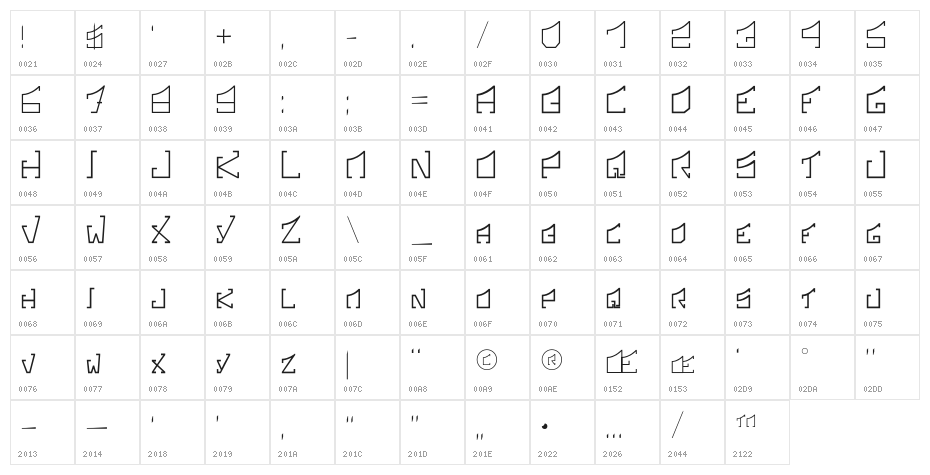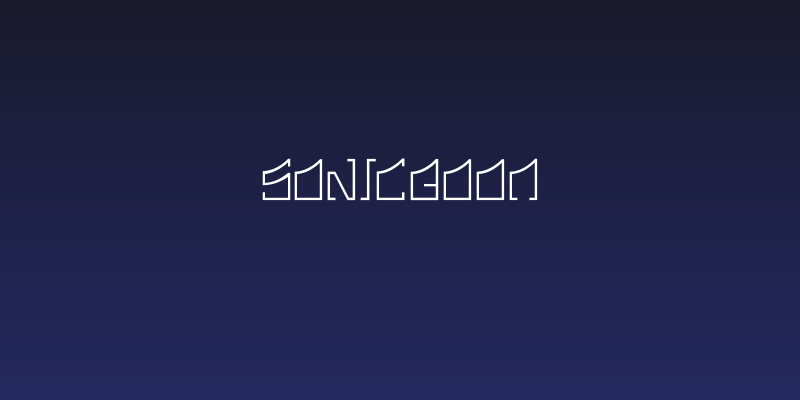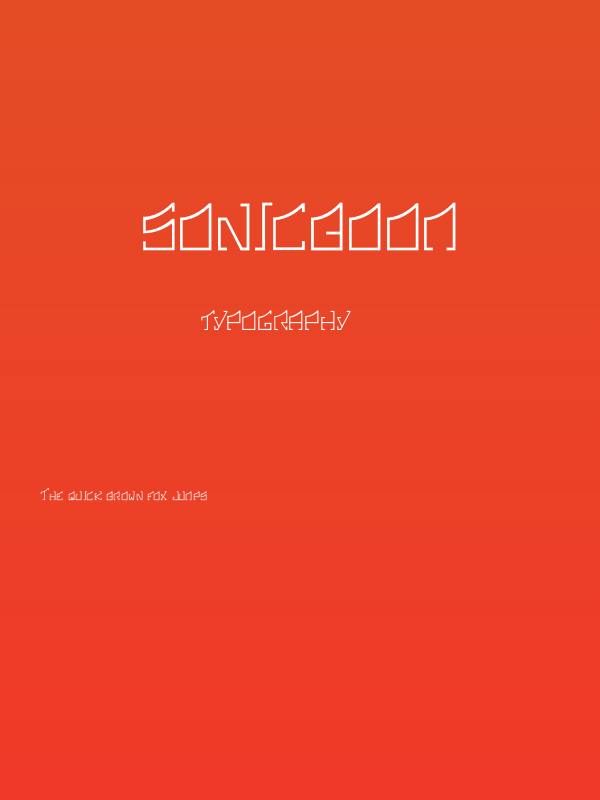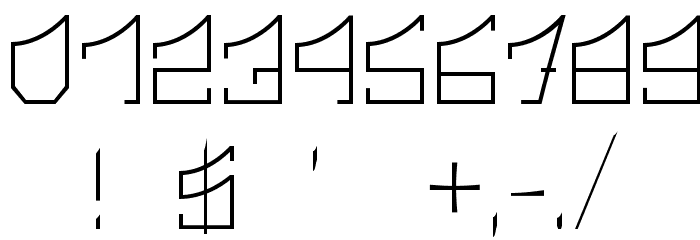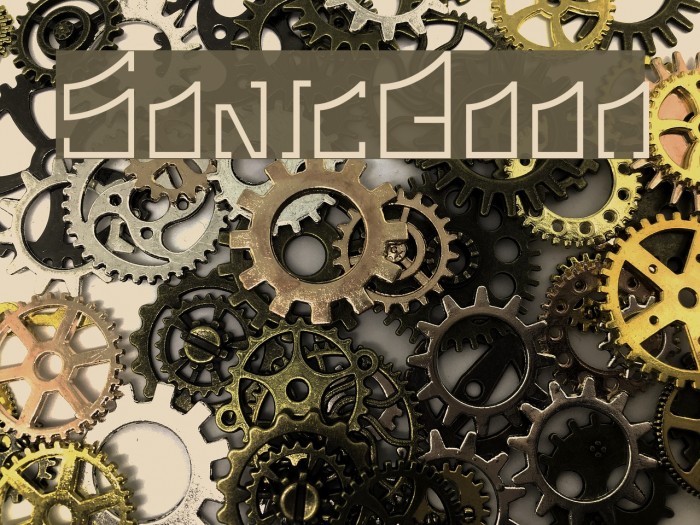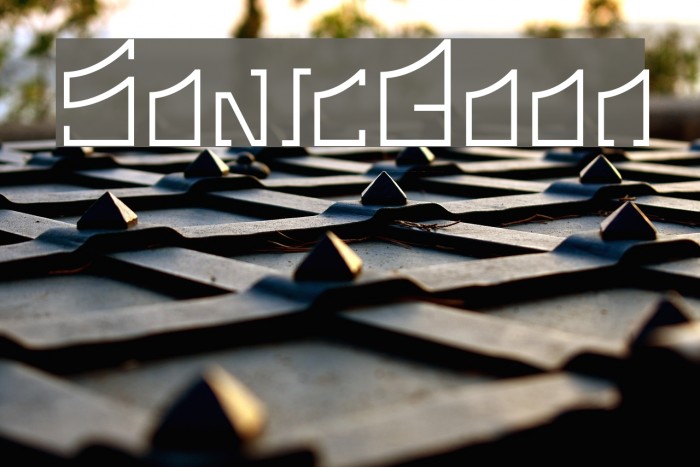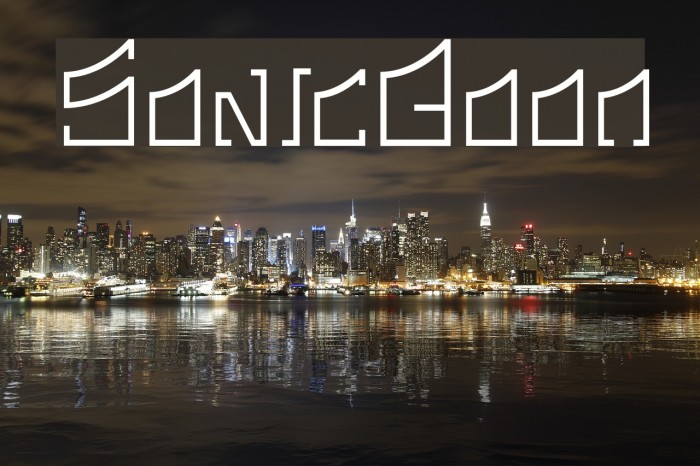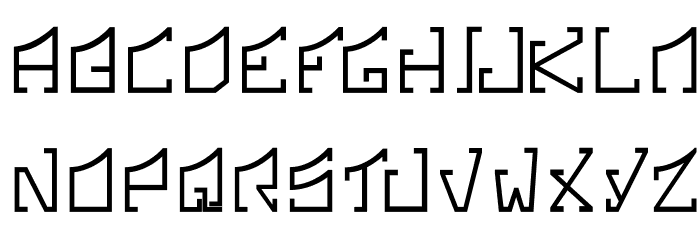
SonicBoom Font
SonicBoom Description
This font features a bold, geometric design with sharp angles and a futuristic aesthetic. The characters are constructed with straight lines and angular corners, giving it a distinctive, edgy appearance. The uppercase and lowercase letters maintain a consistent style, with a uniform height that enhances readability. Numbers and special characters are designed to match the angular theme, ensuring a cohesive look across all glyphs. The font's unique style makes it stand out, ideal for projects that require a modern and innovative touch.
| Proposed Projects | Ideal for sci-fi themed designs, video game titles, tech branding, and modern posters. |